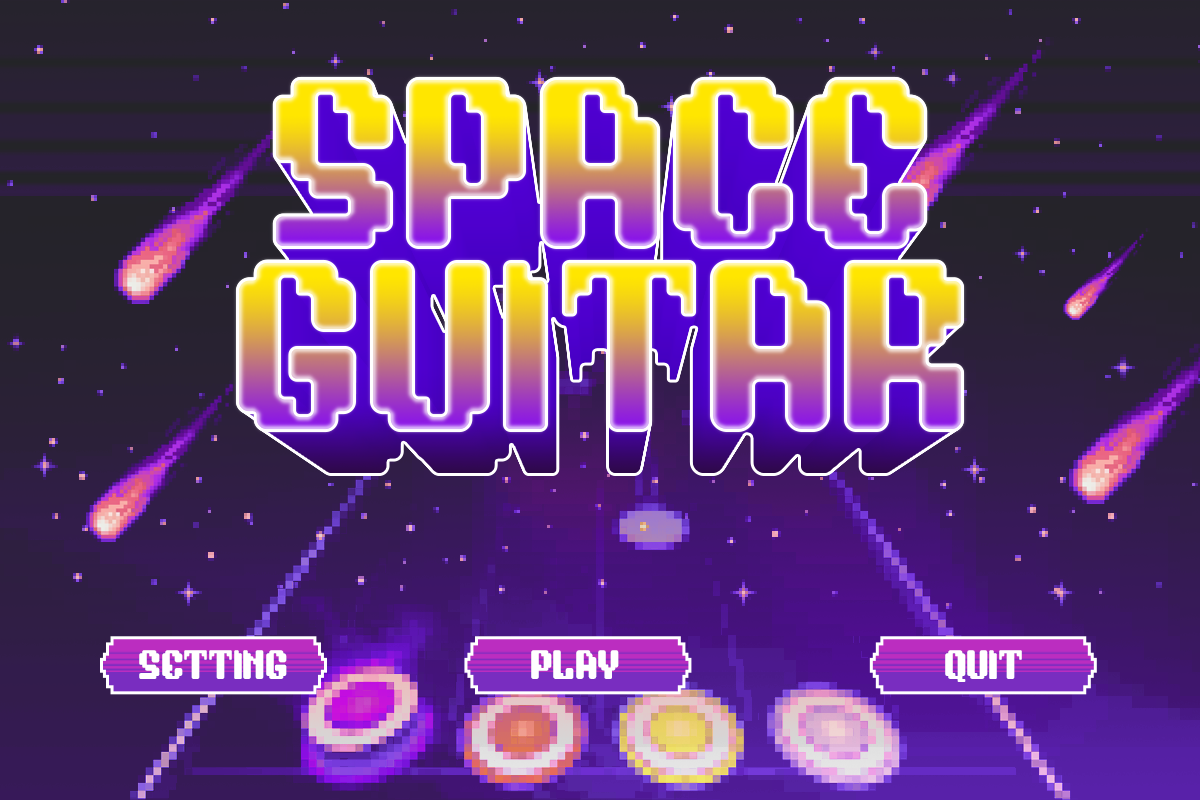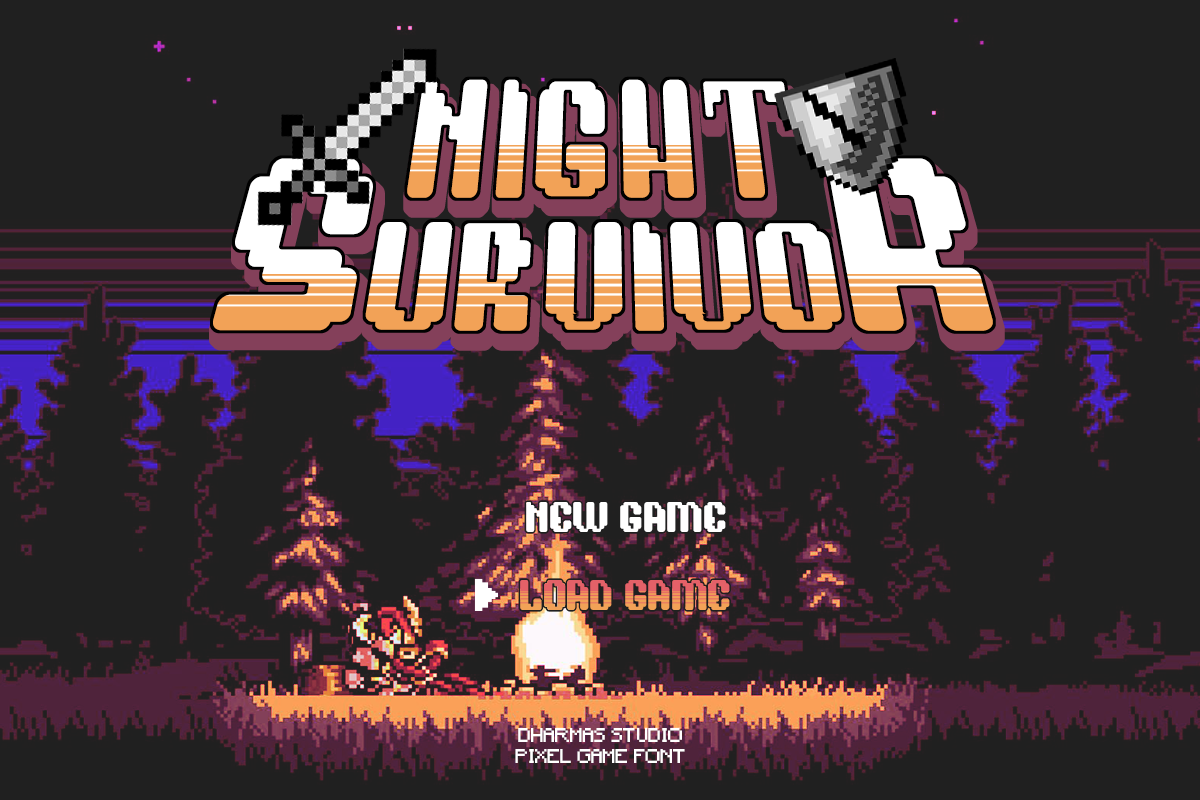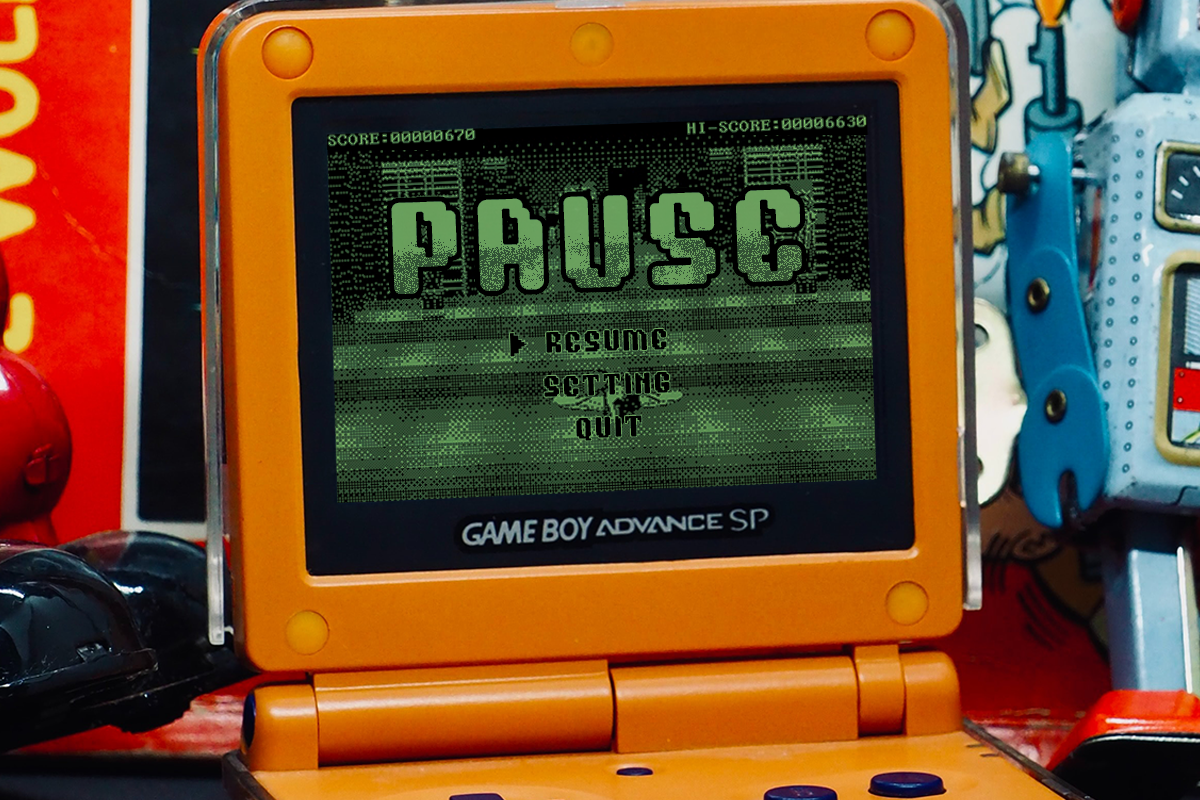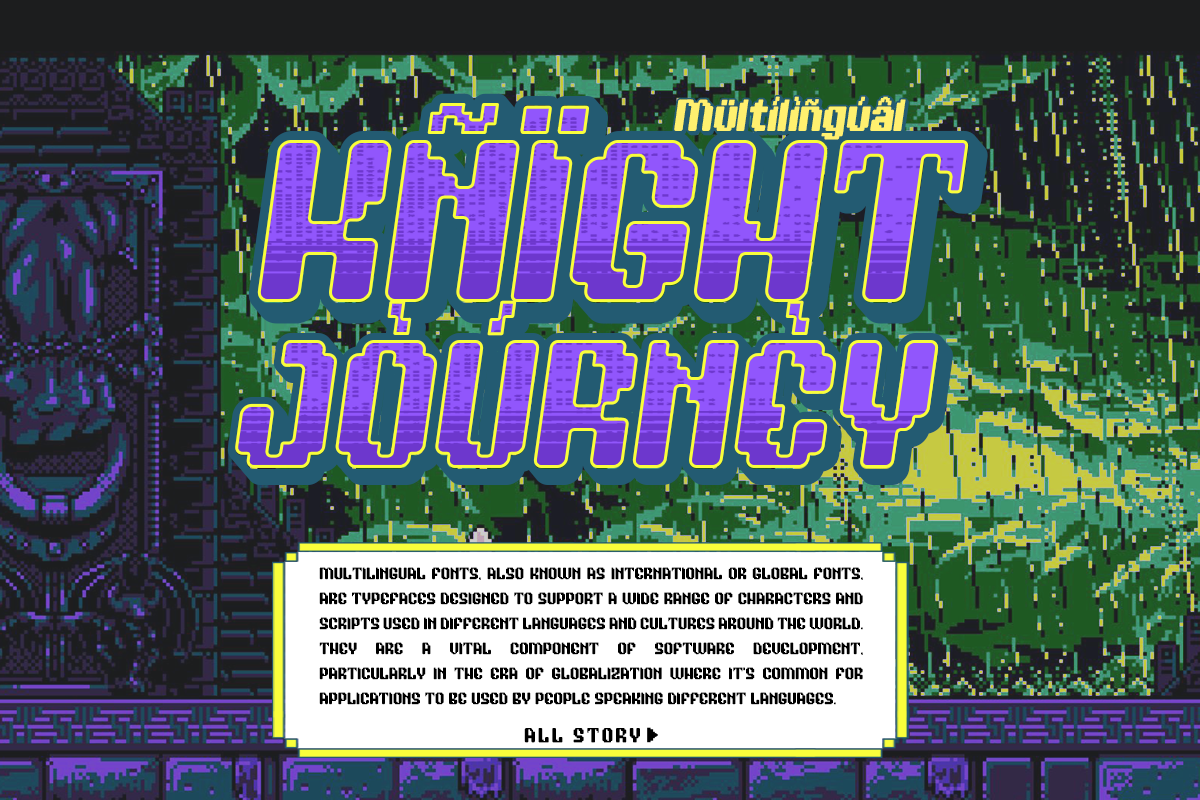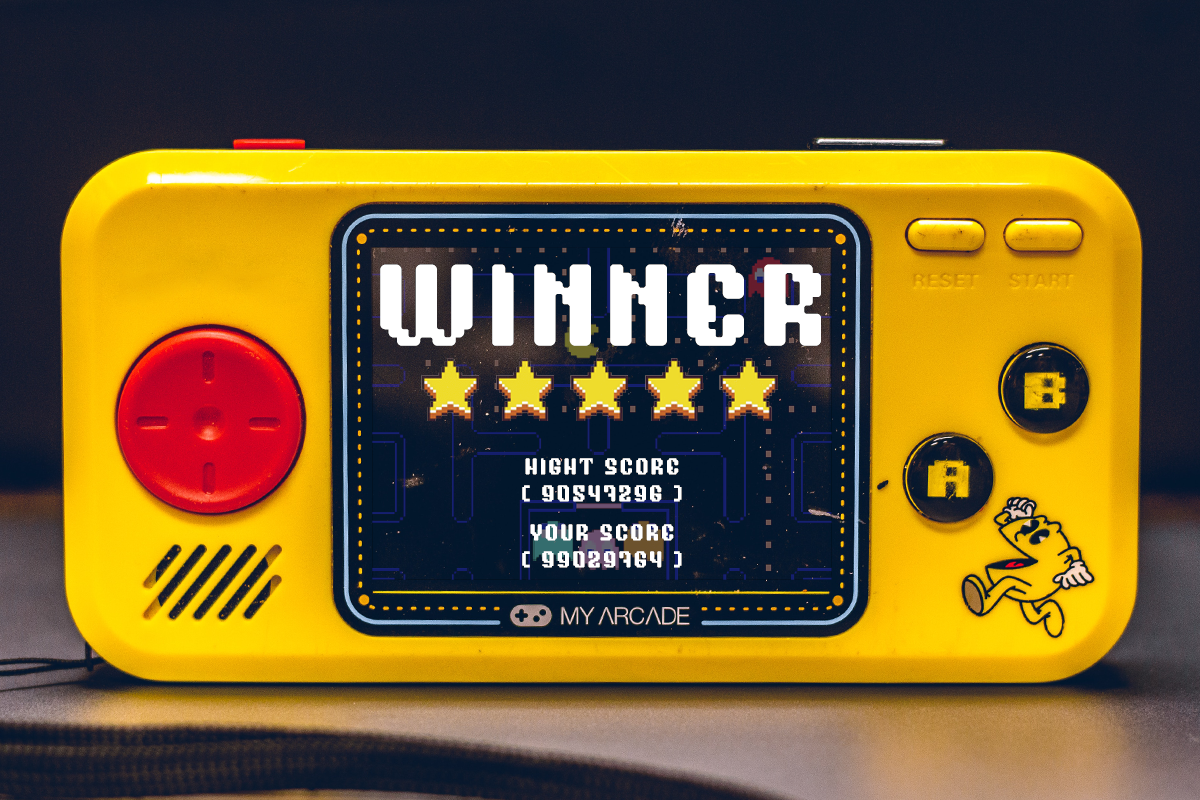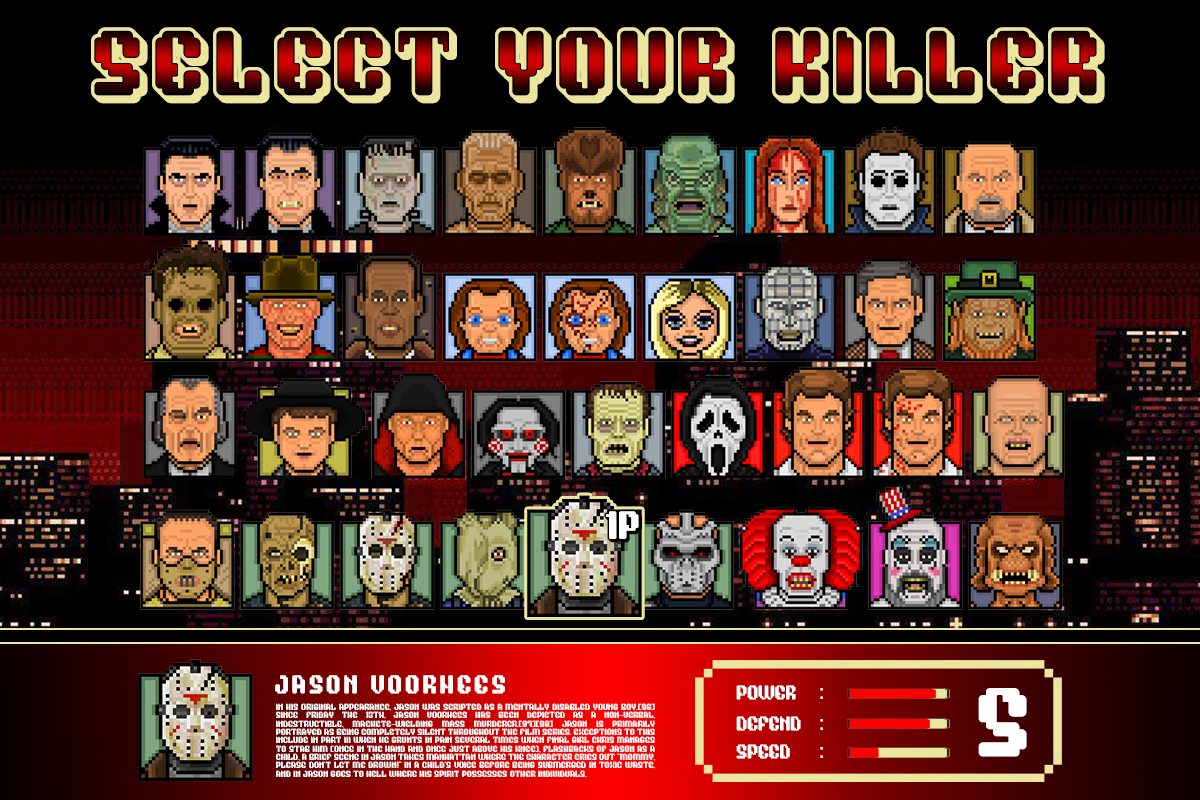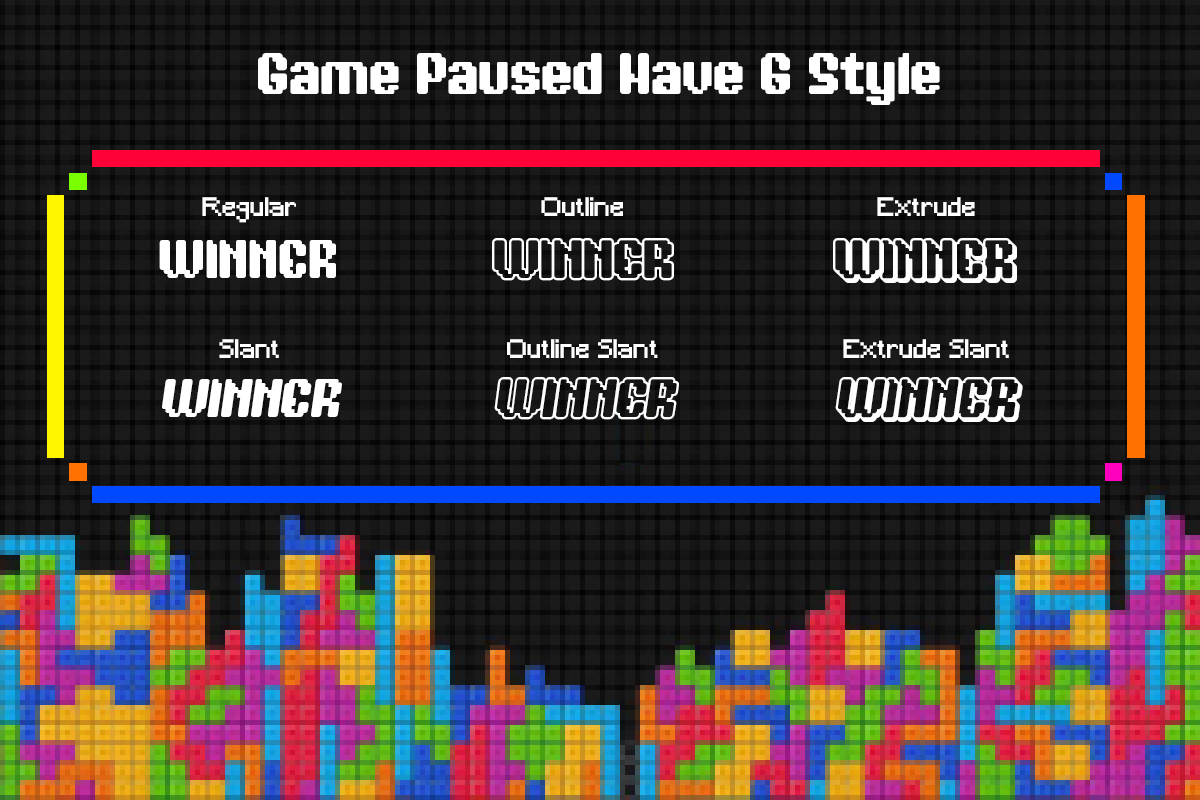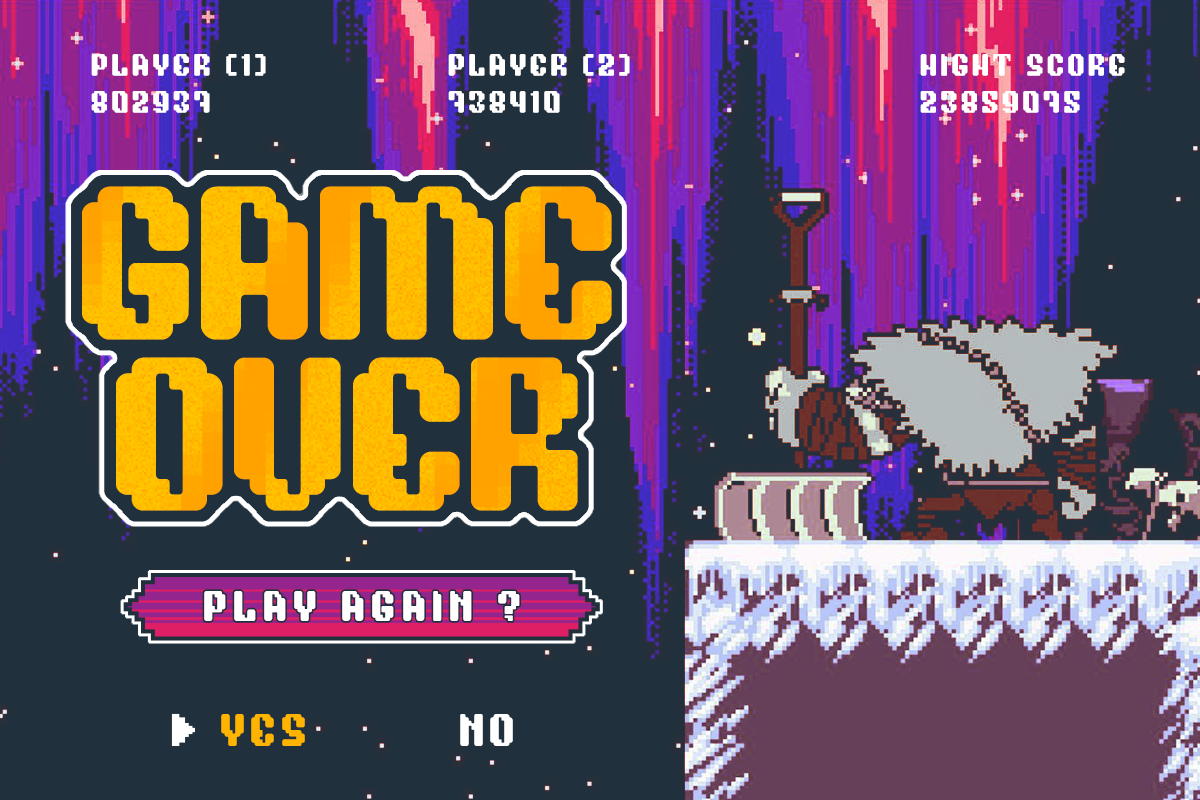
Game Paused - Pixel Game Family
Introducing "GAME PAUSED" Font Collection! 🎮🕹️
Dive into the world of retro nostalgia with the GAME PAUSED font. With its 6 unique styles in each type - Regular, Slant, Outline, Extrude, Outline Slant, and Extrude Slant - this font is a perfect blend of futuristic pixel game vibes.
Designed to complement any project, especially pixel game ventures, GAME PAUSED is a playful tribute to the iconic style of the 00s. Remember the days of Pixel Art, Game Boys, and Cartoon? This font brings back those cherished memories.
- Has 6 Variable: Regular, Slant, Outline, Extrude, Outline Slant, and Extrude Slant
- Unique Letterforms
Get ready to press "START" on a new level of design possibilities with GAME PAUSED. Grab your controller and let your creativity run wild!